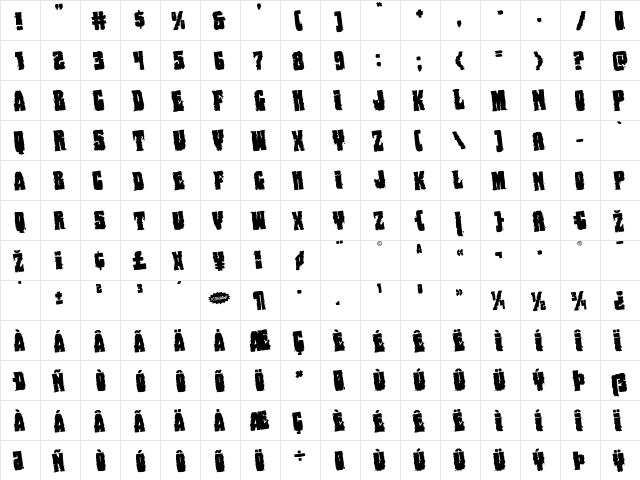
Bog Beast Rotated Regular
Design Context for Bog Beast Rotated Typeface
Bog Beast Rotated is a composed and adaptable typeface that performs quietly and consistently across a wide range of design contexts.